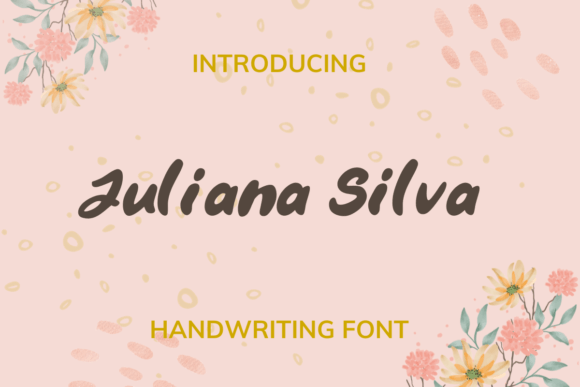
Journey into the enchanting world of "Juliana Silva," a script font that sparks playfulness and invites imagination to flourish. Crafted with meticulous care, it captures the free-spirited essence of natural handwriting, transforming each letter into a whimsical dance on the page. With "Juliana Silva," your designs become a canvas of creativity, where you can manifest captivating magazine layouts, breathe life into inspirational quotes, establish unique brand identities, and embark on limitless design adventures.
Immerse yourself in the charismatic aura of this font, where each character radiates its distinctive personality, adding a touch of approachable charm to your designs. Bid farewell to ordinary fonts and embrace the extraordinary grace of "Juliana Silva." Let your creative spirit soar as you explore the endless possibilities that await, transforming your words into masterpieces that speak volumes. Unleash your inner artist and watch as "Juliana Silva" weaves its magic, turning your visions into tangible works of art.